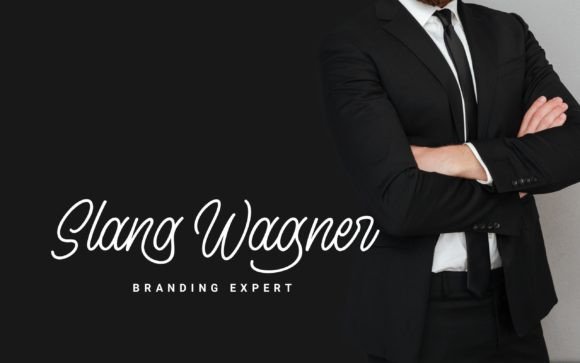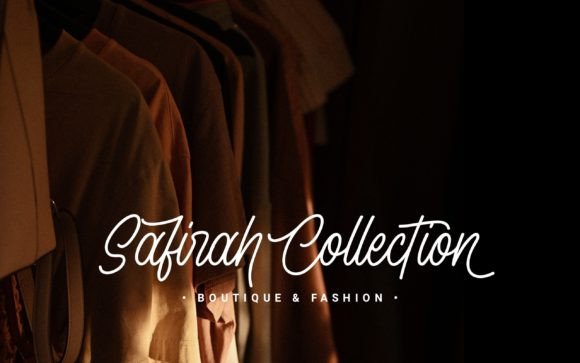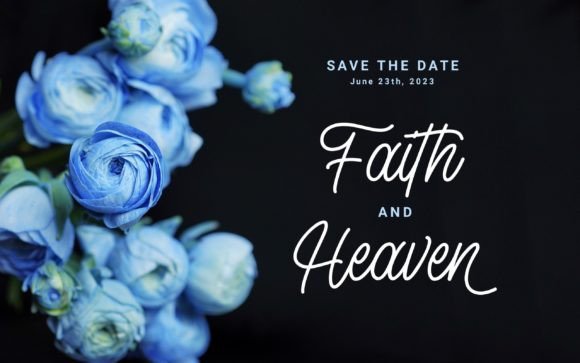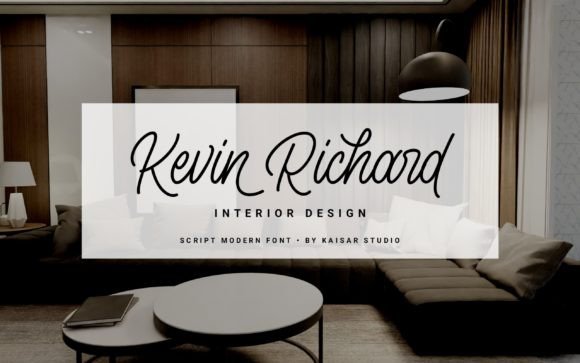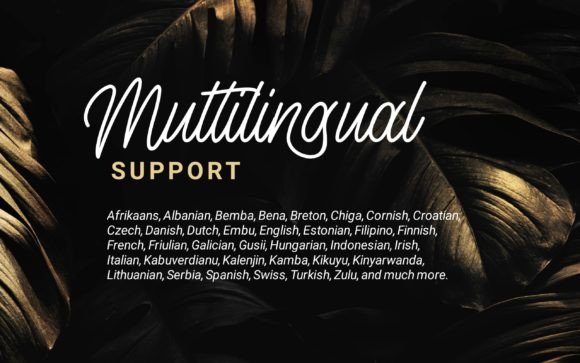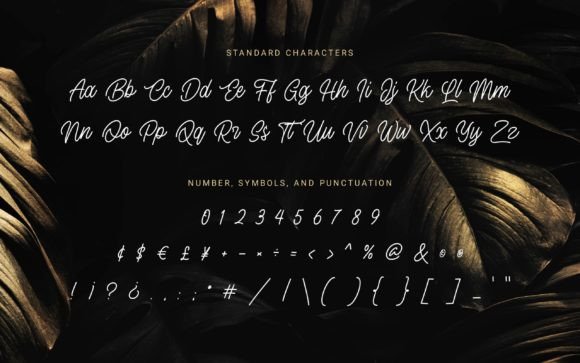
Sylvester Walker Font
About Sylvester Walker Font
Sylvester Walker font is a stylish and sweet script that bursts with energy and personality. When you download Sylvester Walker font, you unlock a typeface that offers a fresh, unique approach to lettering. This font is designed to inspire creativity and elevate your design projects, making it an excellent choice for those seeking a lively and elegant handwritten style.
Stylish Script with a Unique Energy
This font combines charming curves with a dynamic flow that brings a playful yet sophisticated vibe to your text. Sylvester Walkerfont strikes the perfect balance between sweetness and style, making your designs stand out effortlessly. Its vibrant energy makes it ideal for a variety of creative applications.
Perfect for Eye-Catching Designs
Whether you’re working on branding, social media posts, invitations, or logos, Sylvester Walkerfont delivers exceptional versatility. Download Sylvester Walkerfont to add a fresh, energetic touch that will capture attention and enhance your message in any medium.
PUA Encoded for Easy Creativity